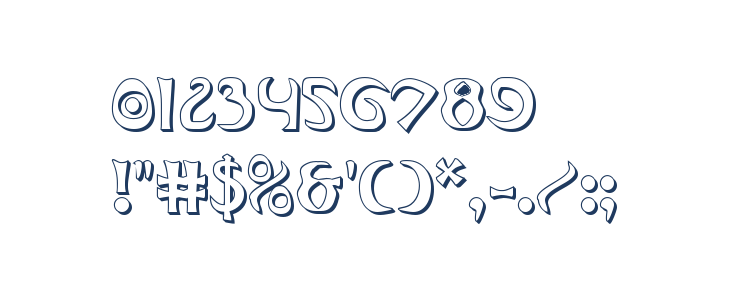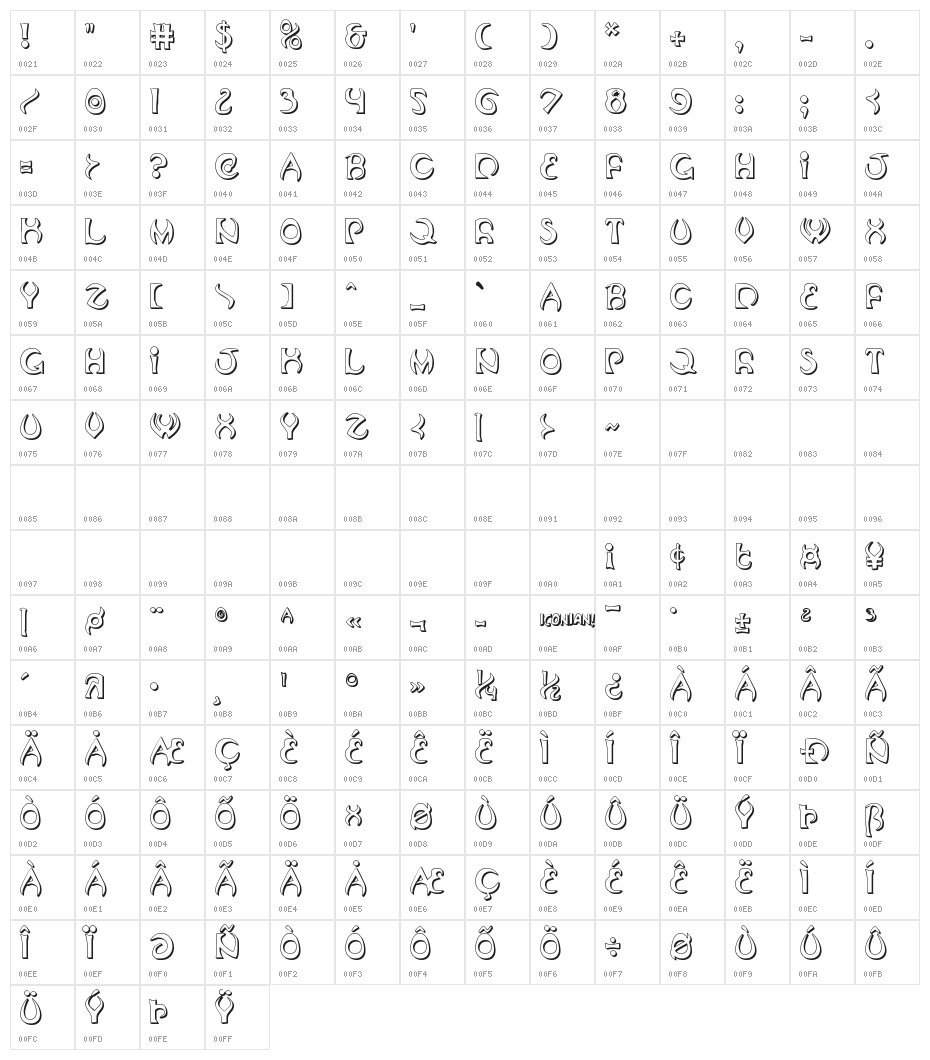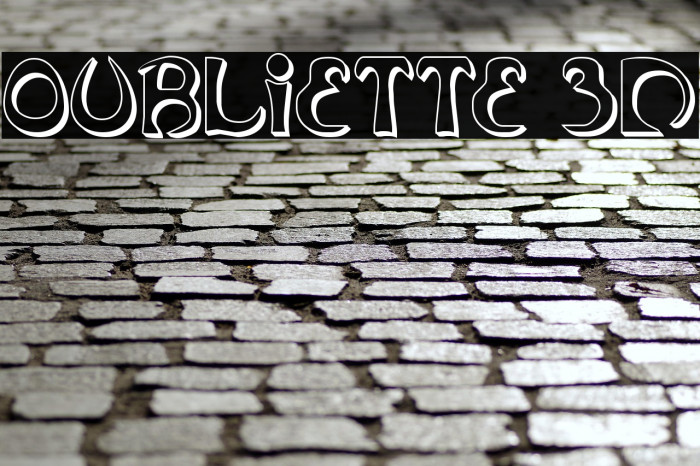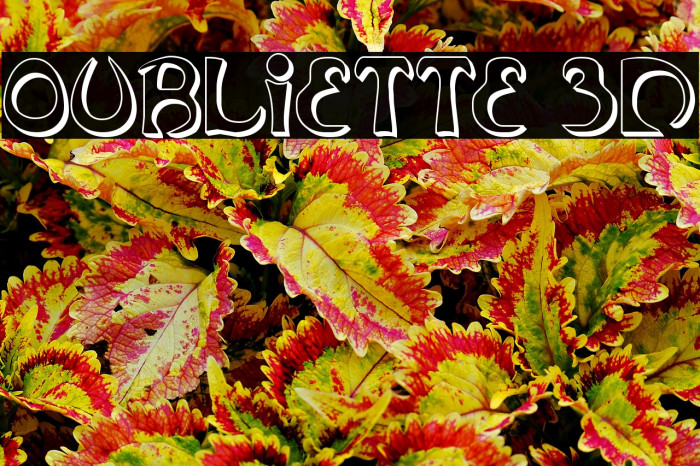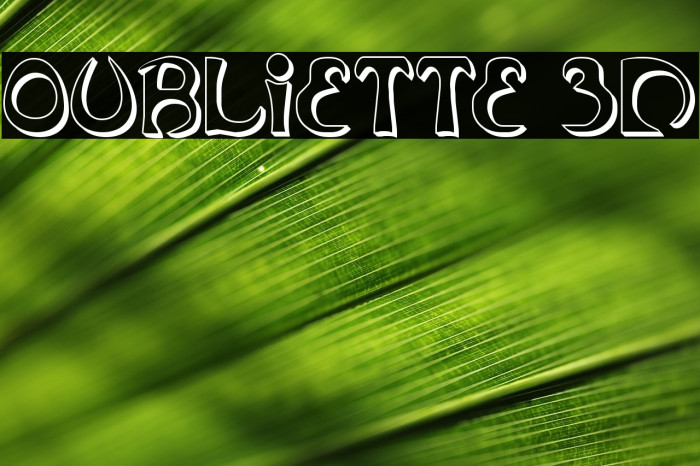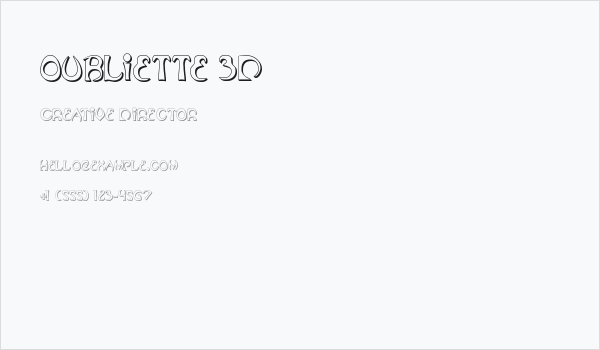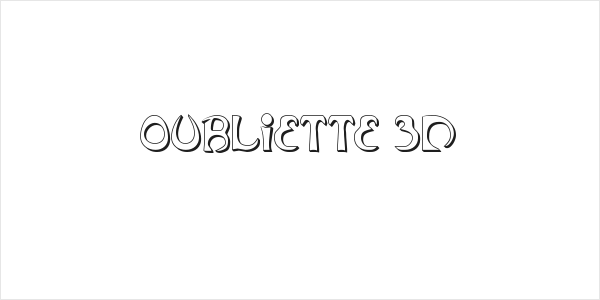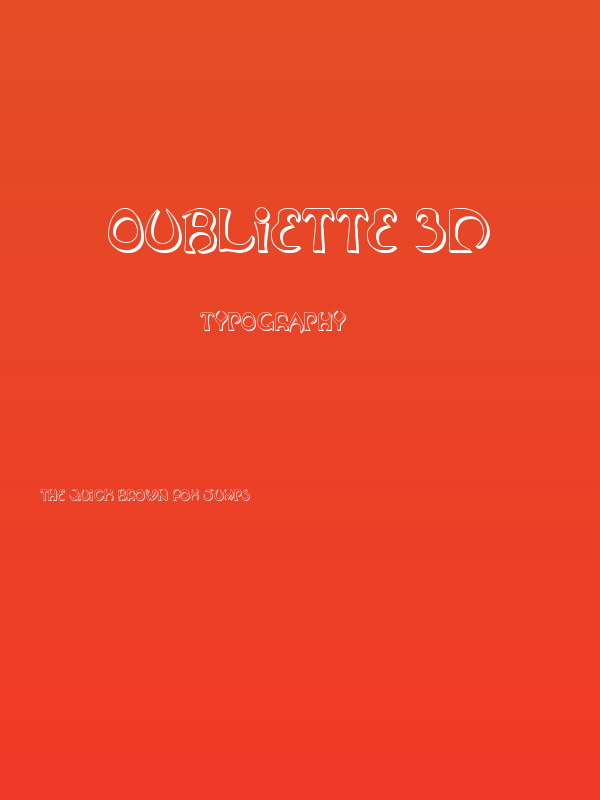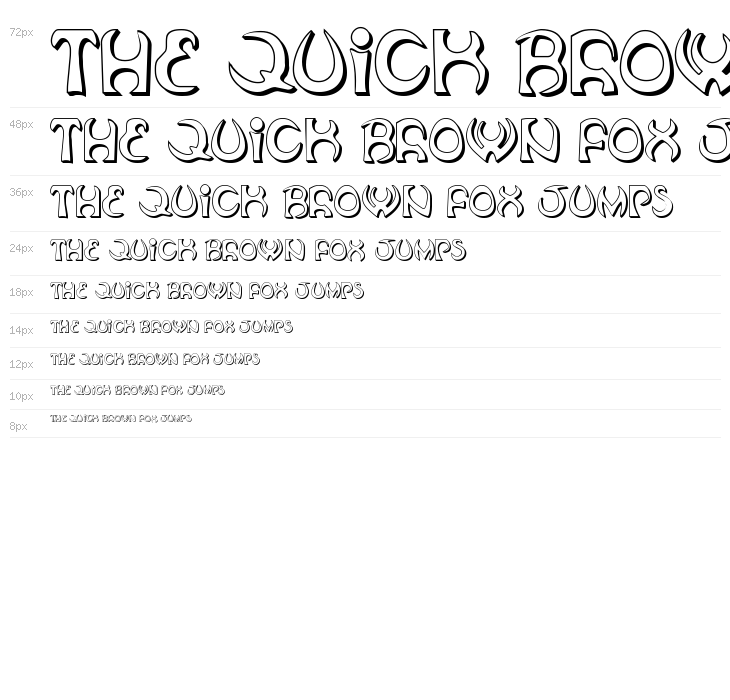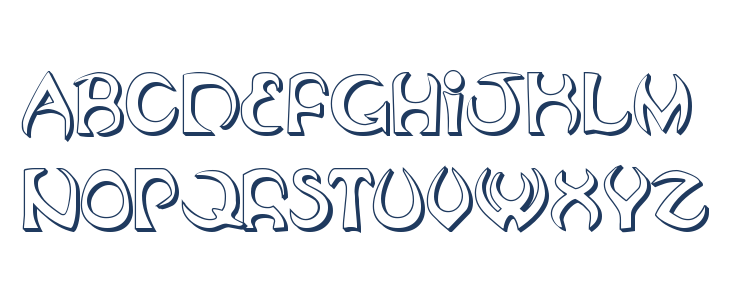
Oubliette 3D Font
Oubliette 3D Description
This font features a bold and dynamic 3D effect, giving each character a sense of depth and dimension. The letters are designed with a playful and artistic flair, incorporating curved lines and sharp angles that create a unique visual impact. The uppercase and lowercase letters maintain a consistent style, while the numbers and special characters are crafted to complement the overall design. The font's distinct appearance makes it suitable for creative and eye-catching projects, where a sense of fun and innovation is desired. Its boldness and decorative style ensure that it stands out in any context.
| Proposed Projects | Ideal for posters, logos, video game graphics, and creative branding. |